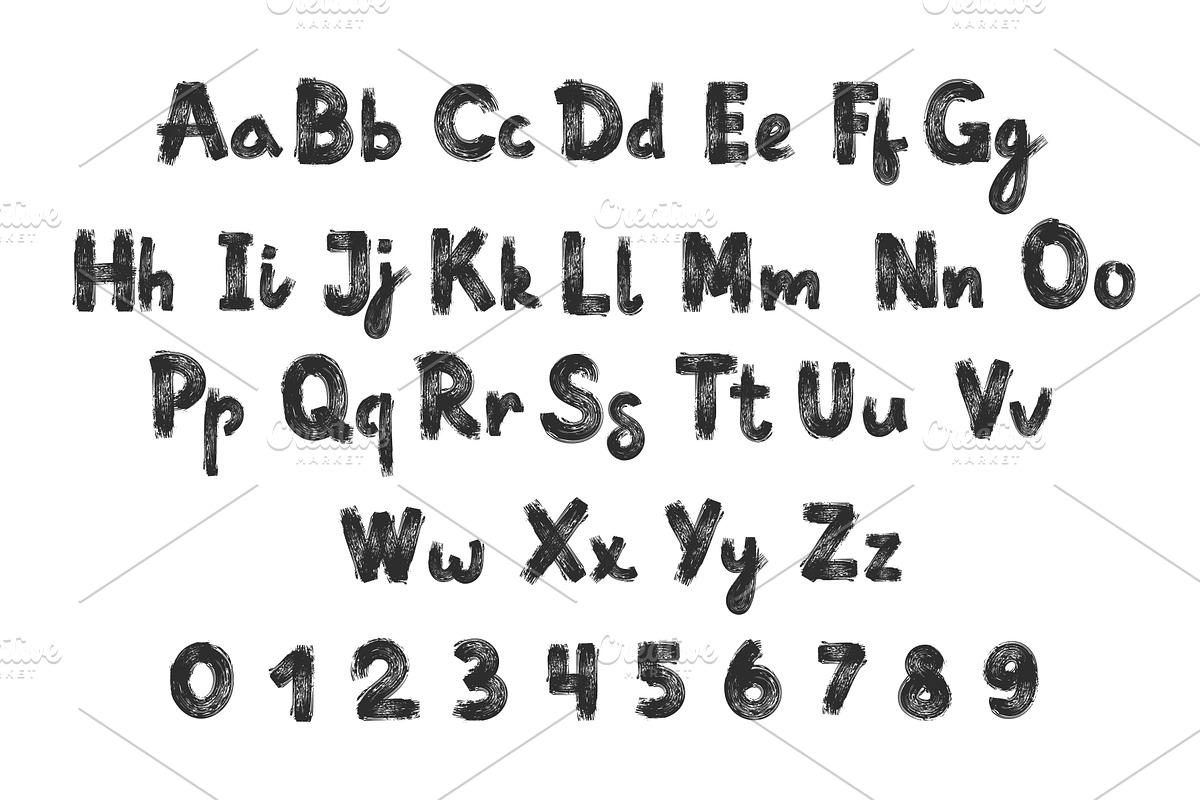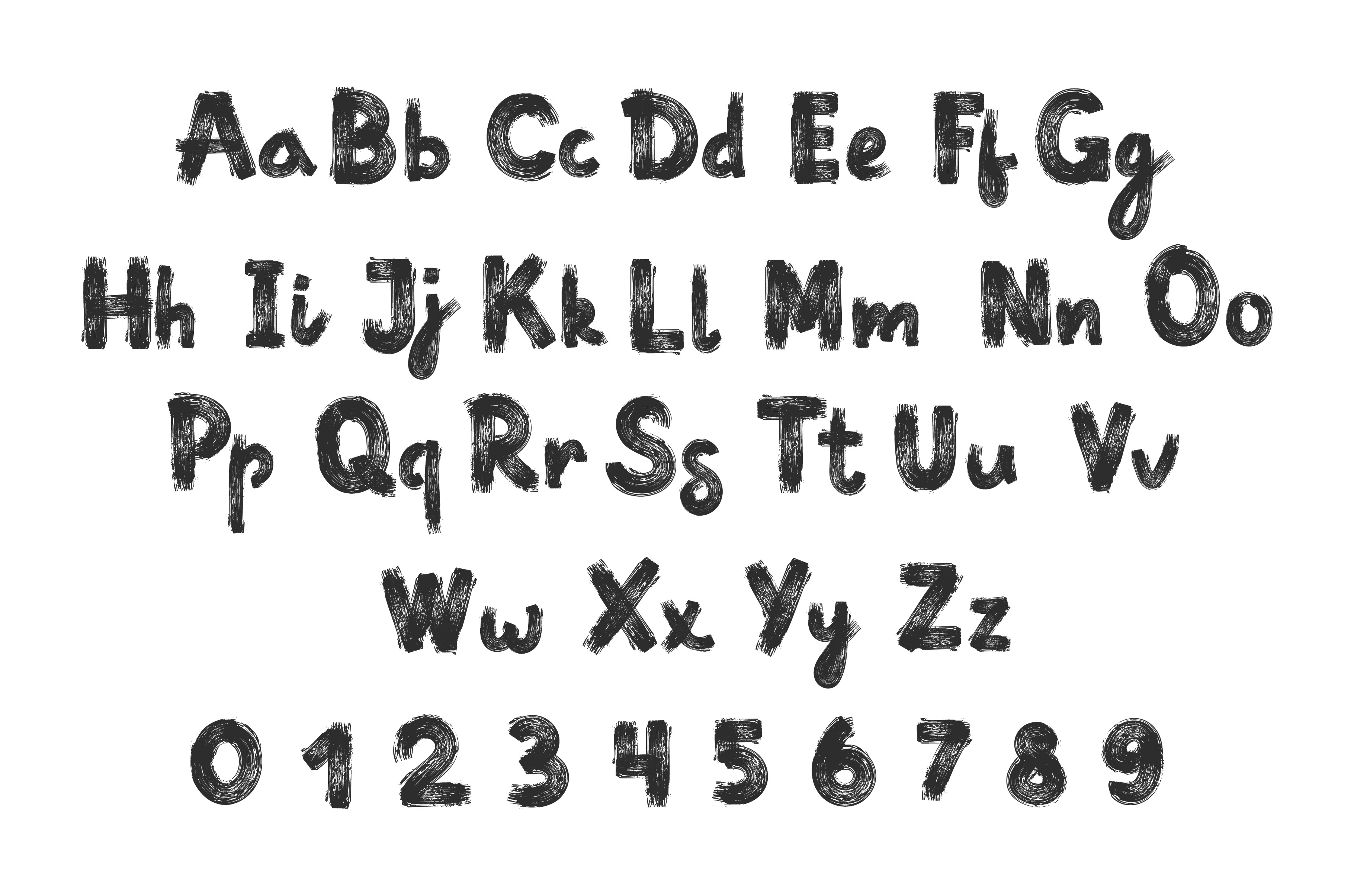
Grunge brush font. Hand drawn
Grunge brush font. Hand drawn numbers, alphabet uppercase and paint brush lettering lowercase letters. Rough textured handwritten ink brushstroke typeface vector set.